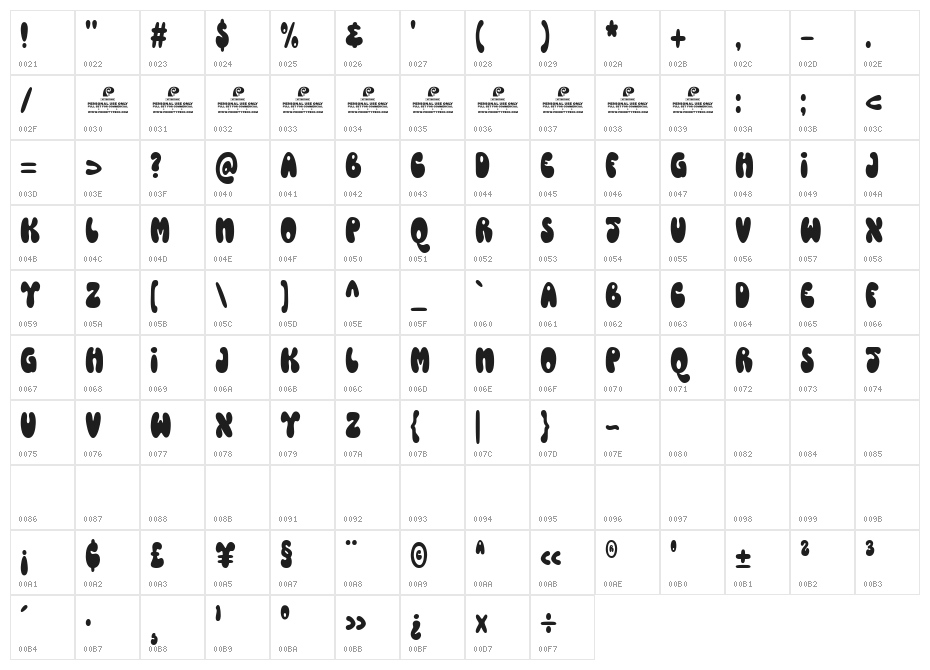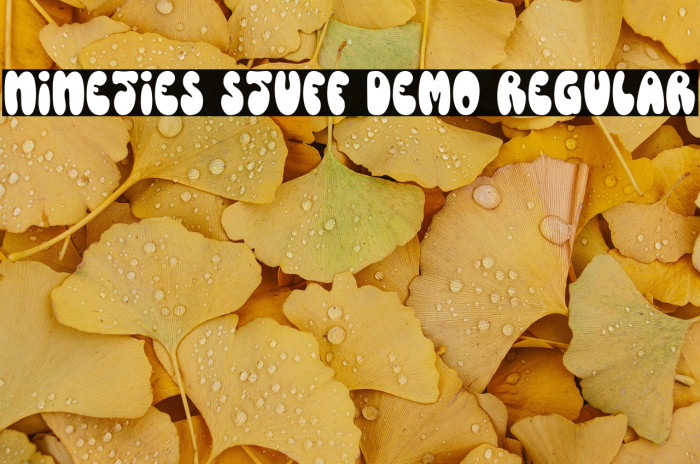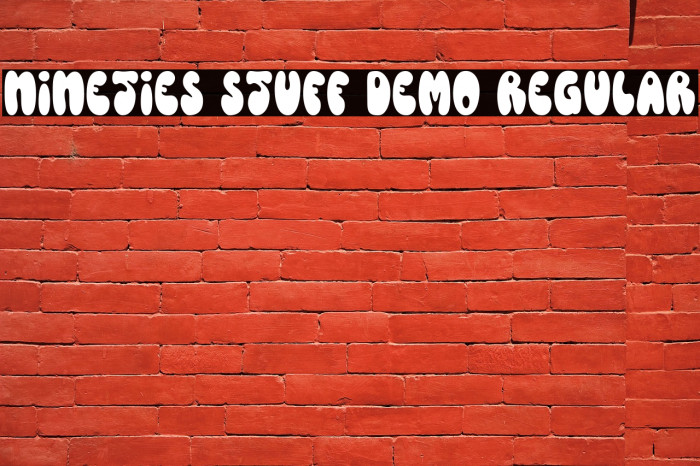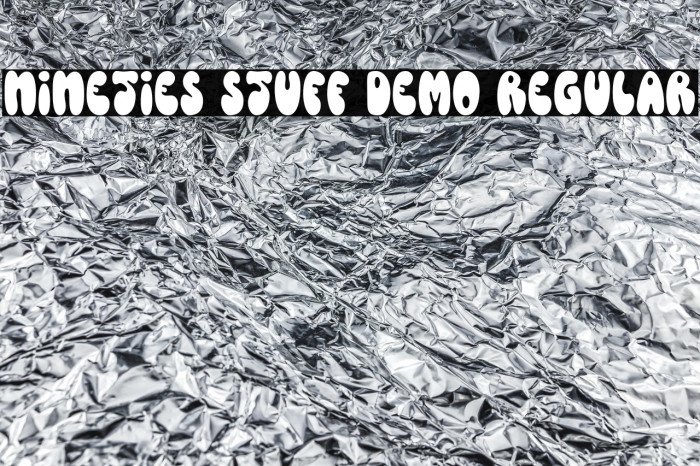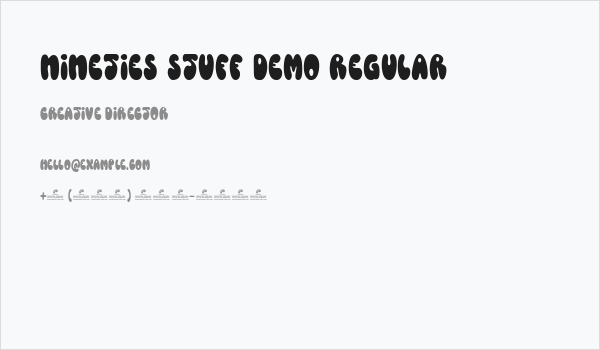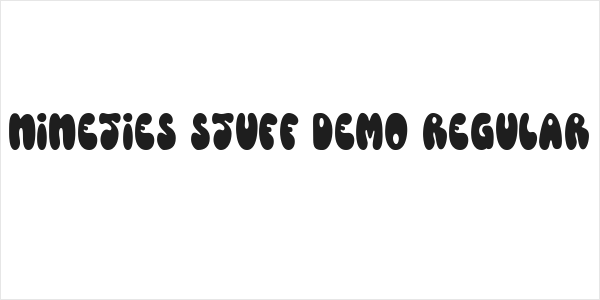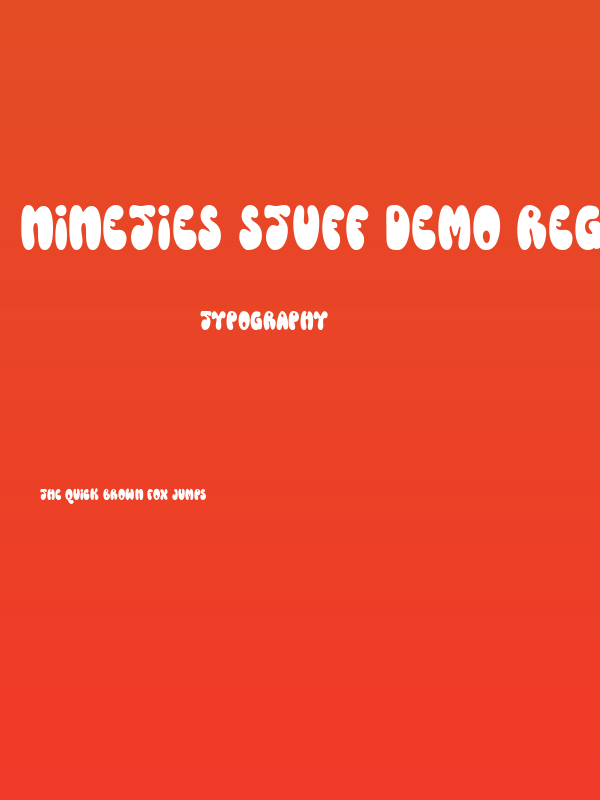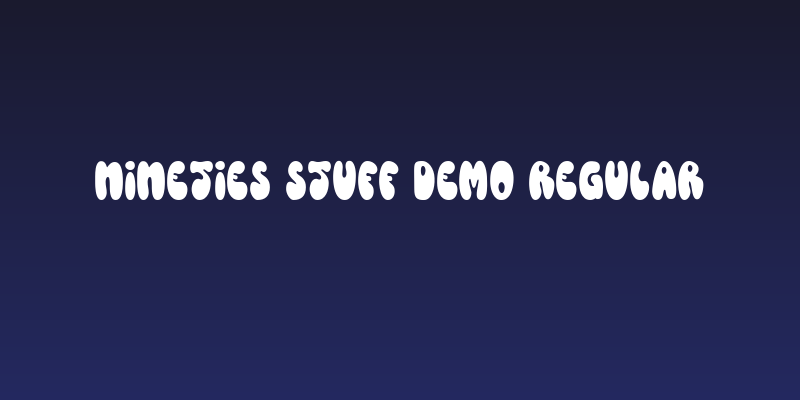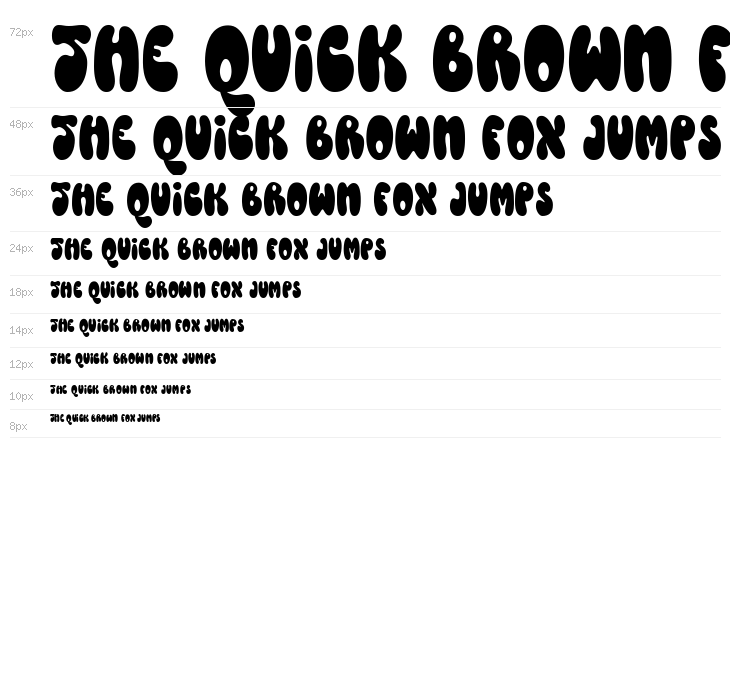
Nineties Stuff DEMO Regular Font
This font features a bold and playful design with thick, rounded characters that exude a sense of fun and nostalgia. The letters are heavily weighted and have a bubbly appearance, reminiscent of styles popular in the 1990s. The overall look is informal and eye-catching, making it ideal for projects that require a lively and energetic feel. The characters are closely spaced, enhancing the compact and cohesive look of the text. The font includes a full set of uppercase and lowercase letters, numbers, and a variety of special characters, all maintaining the same whimsical style.
| Proposed Projects | Ideal for retro-themed designs, children's books, party invitations, and playful branding. |